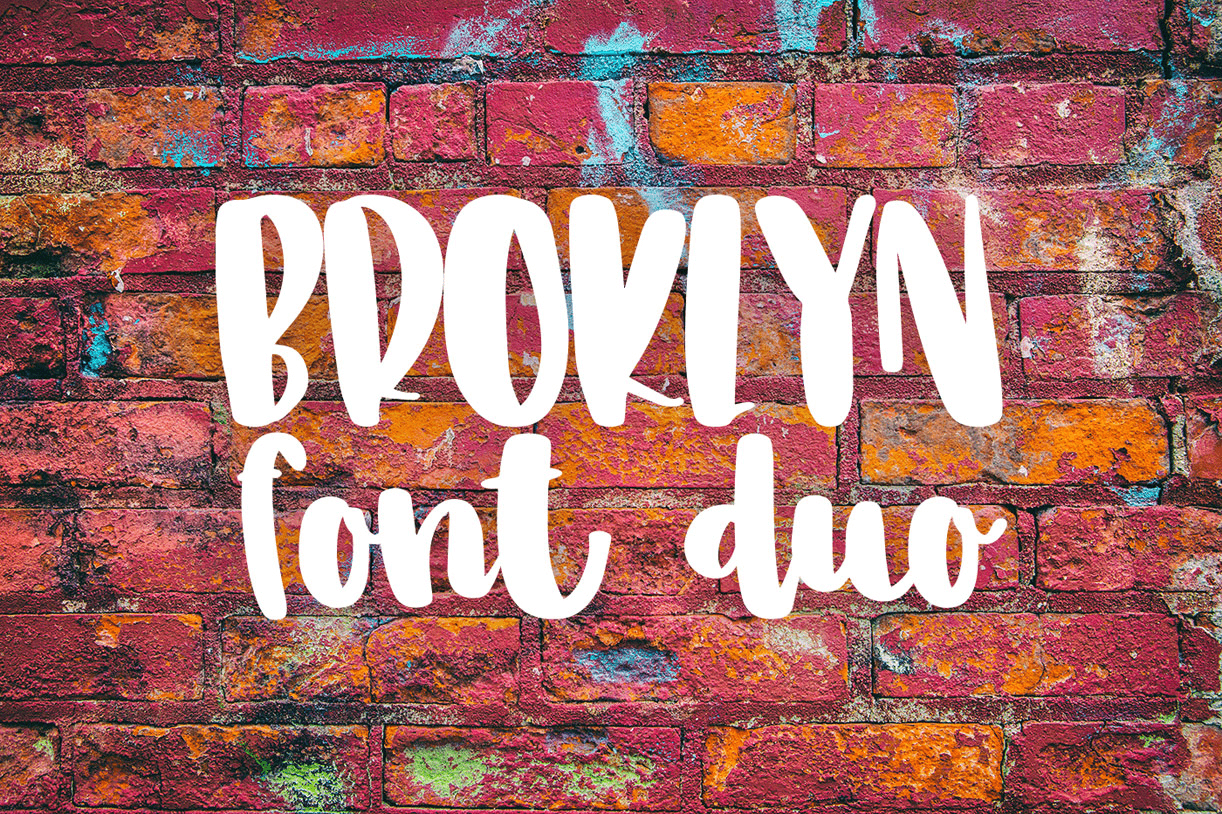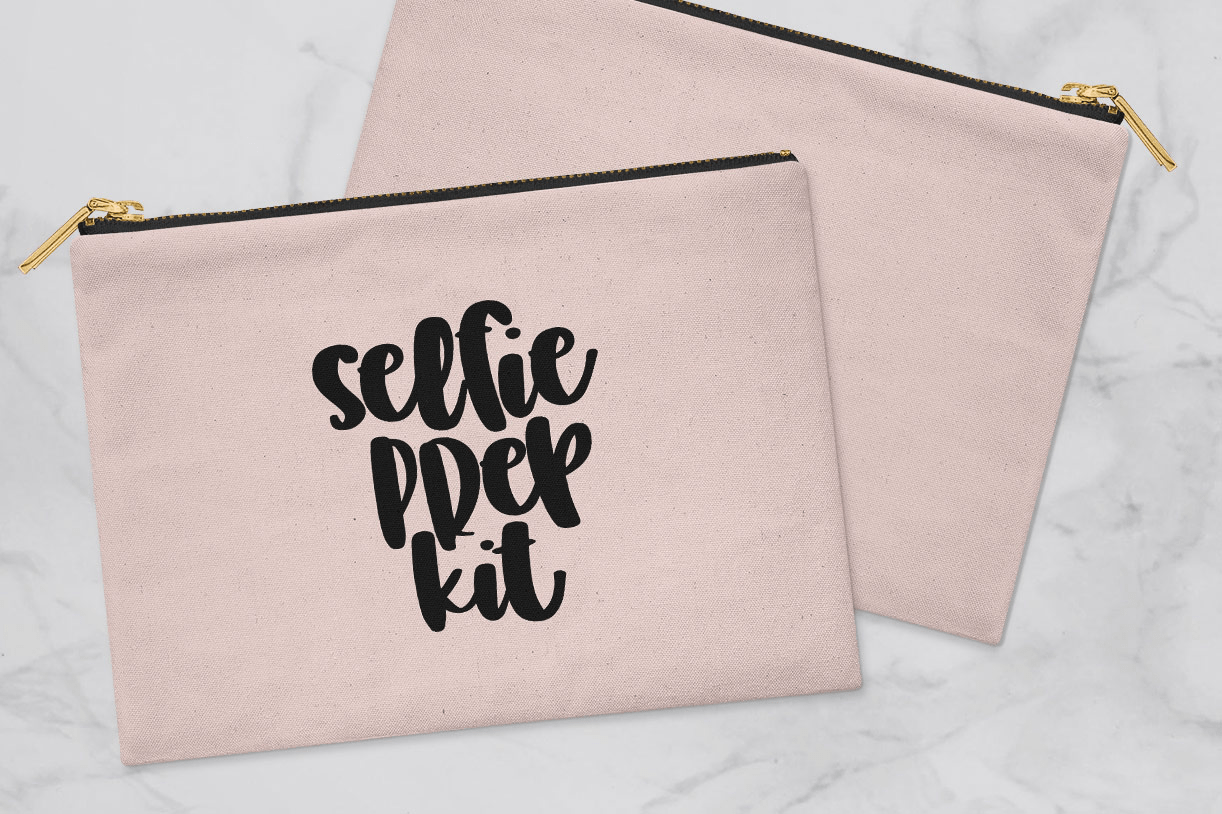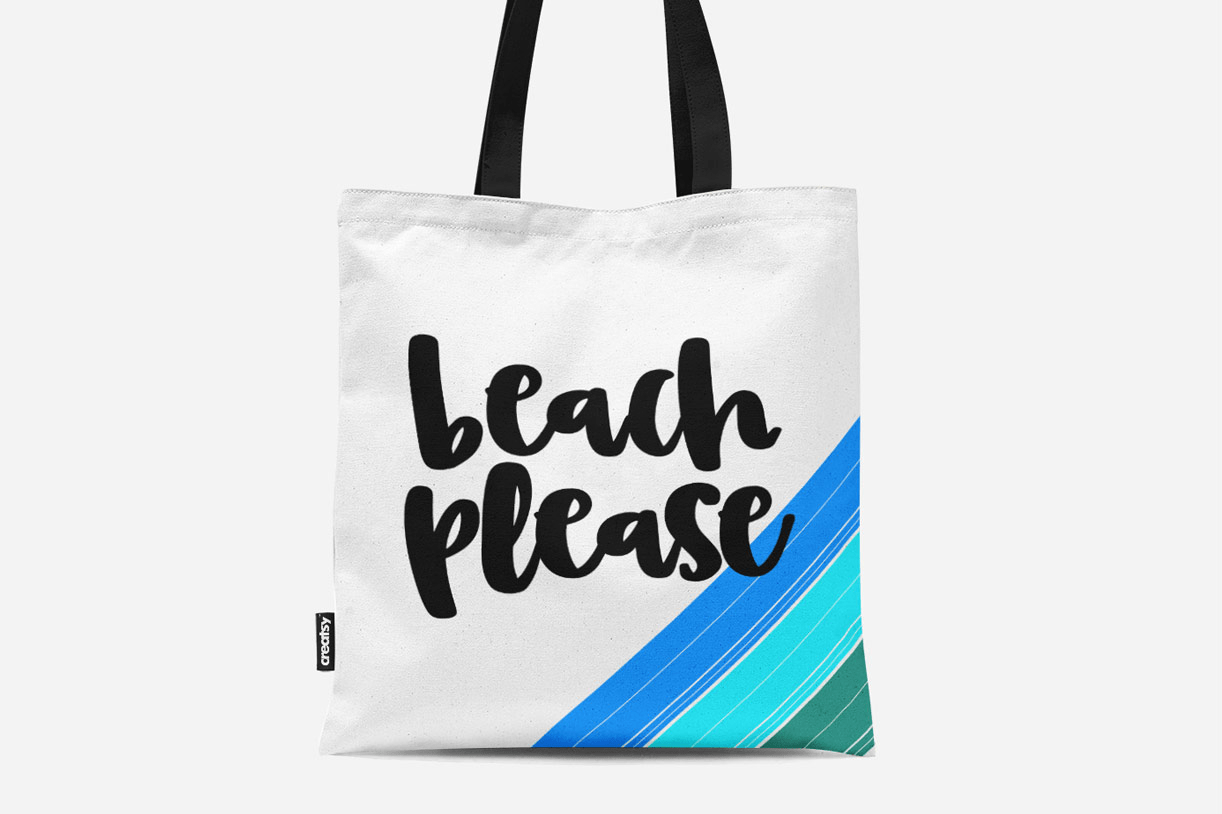
Broklyn Font Duo
Broklyn is a chunky fun font duo with two sets of uppercase letters and one set of lowercase letters. Uppercase accents included. Punctuation also included. No numbers for this funky display font!